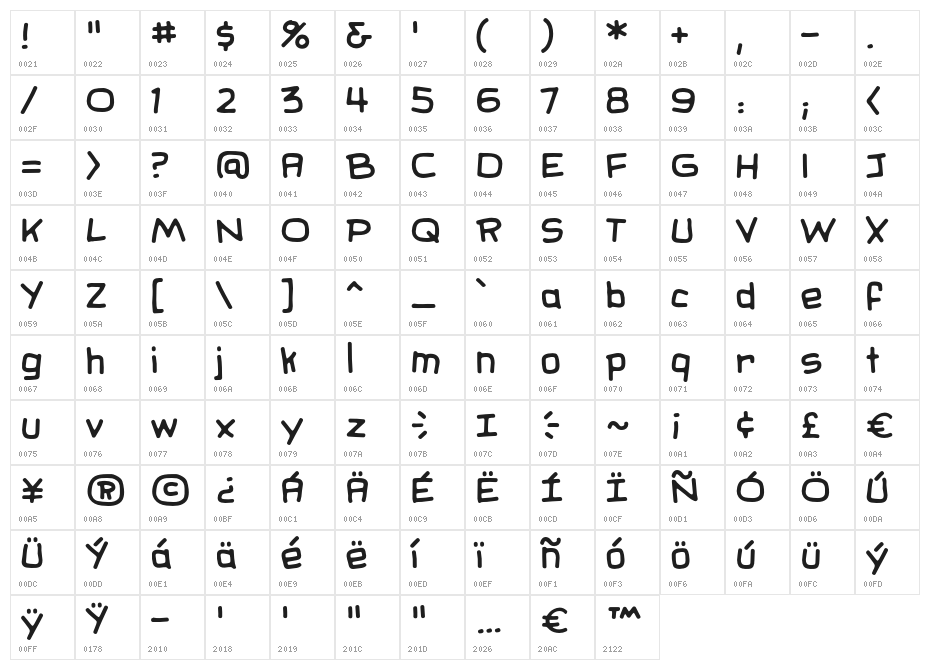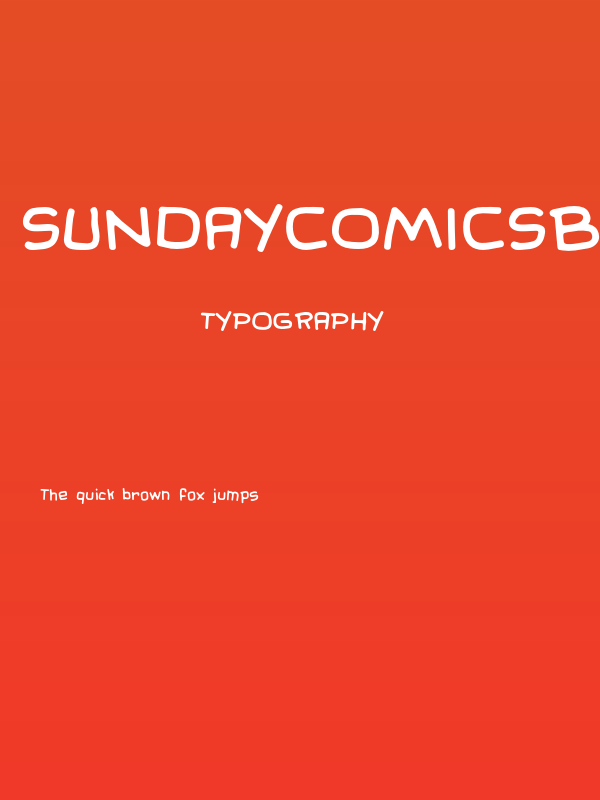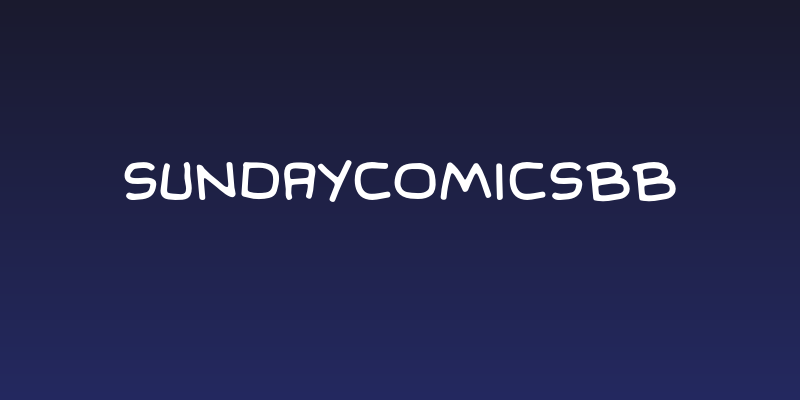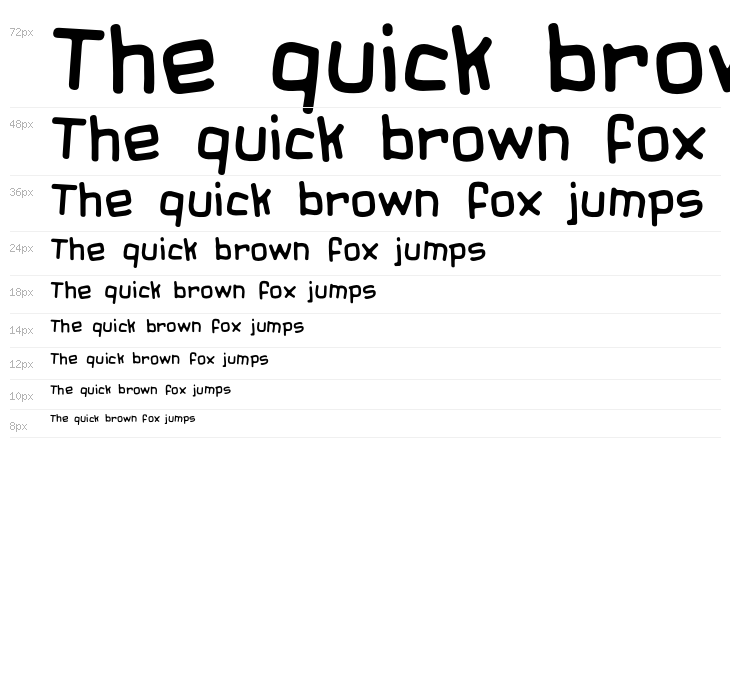
SundayComicsBB Font
SundayComicsBB Description
This playful and bold font features a hand-drawn, comic-style aesthetic that is both approachable and lively. The characters are slightly rounded with a consistent stroke width, giving them a friendly and informal appearance. The uppercase and lowercase letters maintain a uniform style, with a slight tilt that adds to the casual feel. The numerals and special characters are designed to match the overall whimsical theme, making them perfect for creative and fun projects. The font's unique style is reminiscent of classic comic book lettering, making it ideal for projects that require a touch of humor and personality.
| Overall Style | Playful, Comic |
| Proposed Projects | Ideal for comic books, children's books, playful branding, and creative posters. |